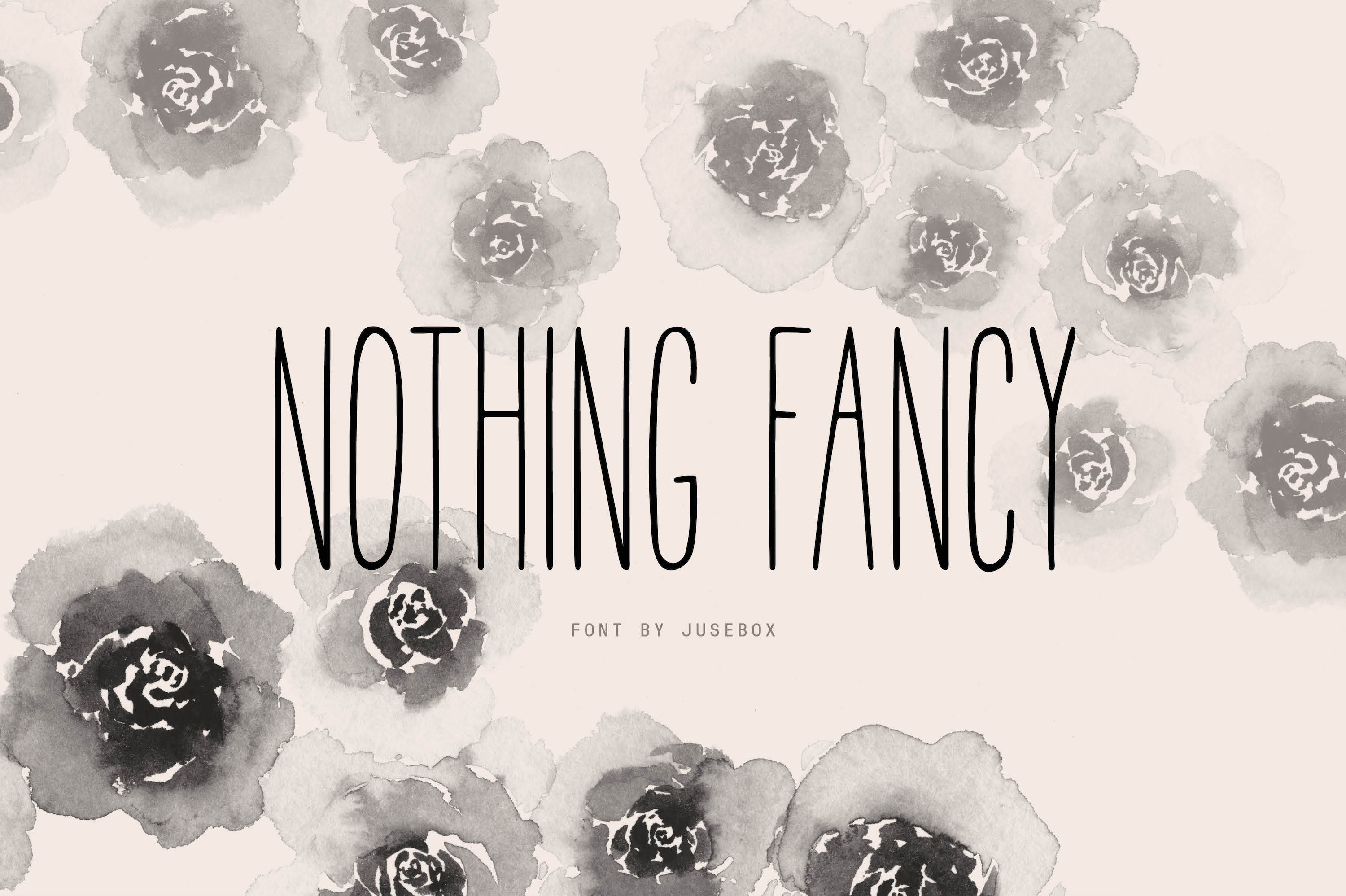
Nothing Fancy Font
Nothing Fancy is another sleek and simple handwritten font designed by Jusebox. OTF, TTF & web font files included.
Features: uppercase and lowercase characters numbers multilingual symbols punctuation